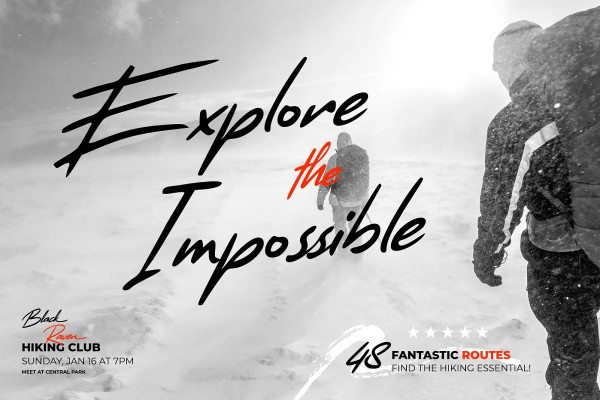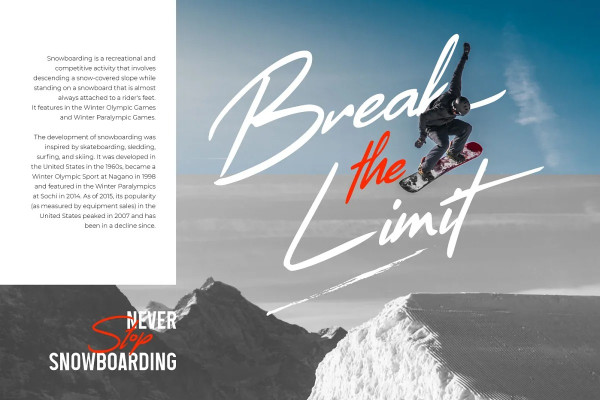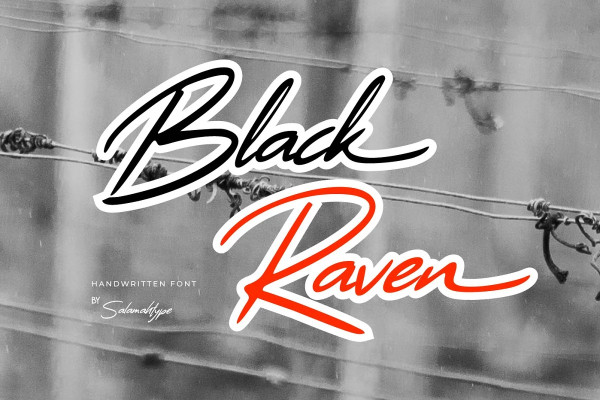
Black Raven Font
Black Raven Font is a semi script font with handwritten style. Black Raven is inspired by extreme and challenging sports where this font looks like bold and strong ink strokes, also suitable for anyone who likes adventure themes.
This font is perfect for branding projects, logos, social media posts, advertisements, product packaging, product designs, label, photography, watermark and so much more.